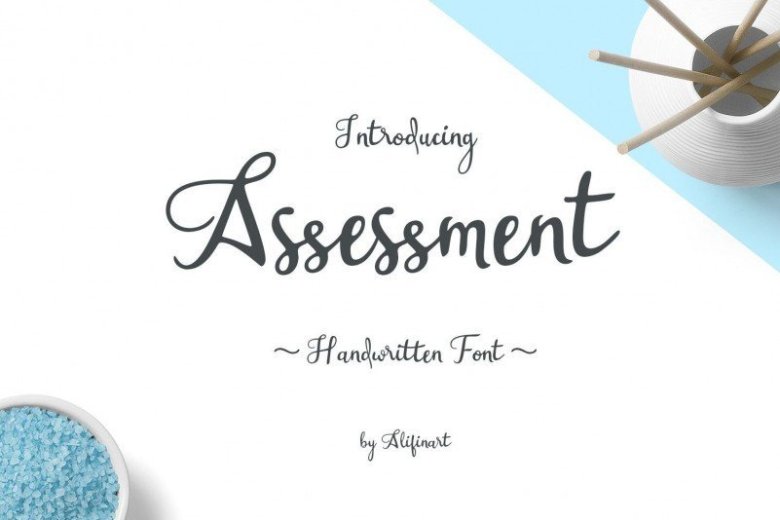
Assessment Calligraphy Font
Assessment Font a new fresh & modern script with a handmade calligraphy style, decorative characters and a dancing baseline! So beautiful on invitation like greeting cards, branding materials, business cards, quotes, posters, and more!!
The opentype features Assessment has: Stylistic Alternates, Swashes, Ligatures and Discretionary Ligatures. It’s a PUA encoded font that can be used in any program by using your operating system’s utilities such as Character Map (Windows) and Font Book (Mac) as well as Illustrator, InDesign, Photoshop, etc.